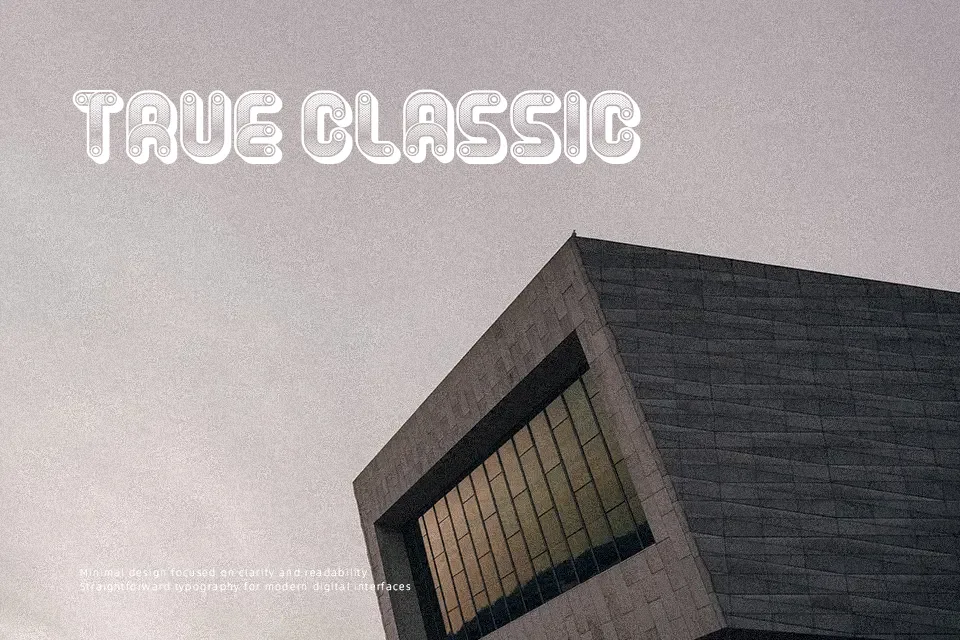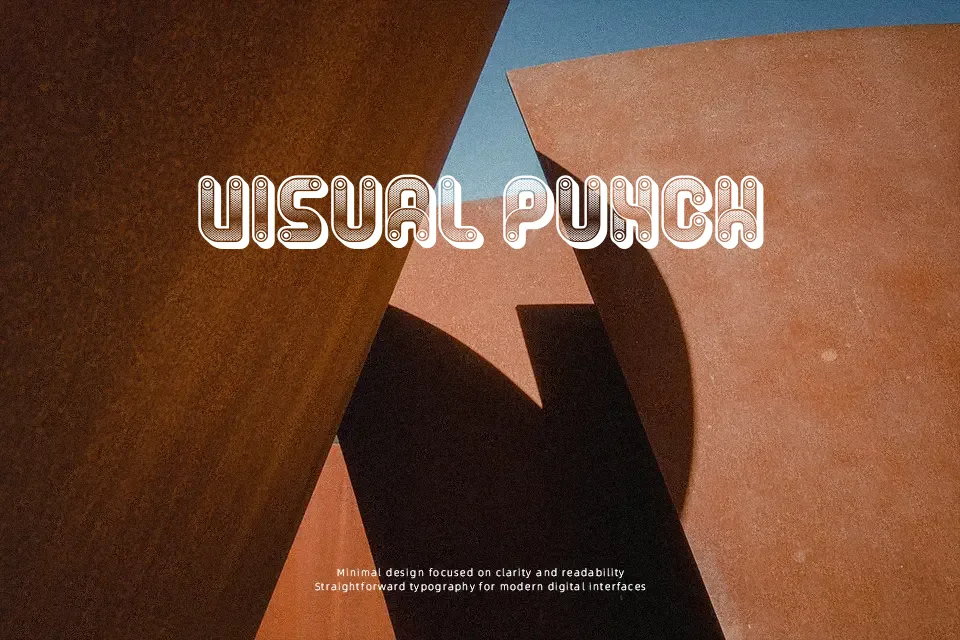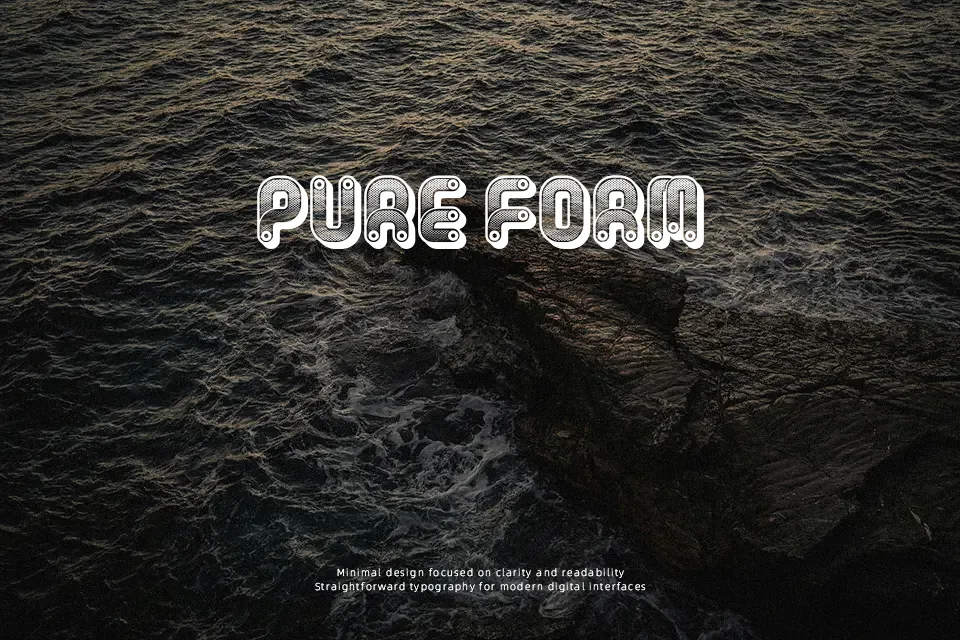
Shape Font
Shape Font functions as an expressive display typeface distinguished by modular geometric structures and heavy, unconventional stroke shapes. The letterforms showcase uniform line weights paired with pronounced structural angles, creating a rhythmic yet abstract visual presence across character sets. Tight optical spacing and solid character bodies maximize visual weight, ensuring that short phrases and prominent titles stand out across digital or printed media. However, the intricate decorative silhouettes significantly compromise character recognition when scaled down to smaller sizes. The typeface remains an effective choice for impactful logos and promotional graphics, though it is unsuited for dense paragraphs or continuous editorial reading.
Best For: art exhibition posters,creative packaging labels,music album covers,large billboard headlines
Not Ideal For: body text paragraphs,mobile app interface labels,technical documentation,small print captions